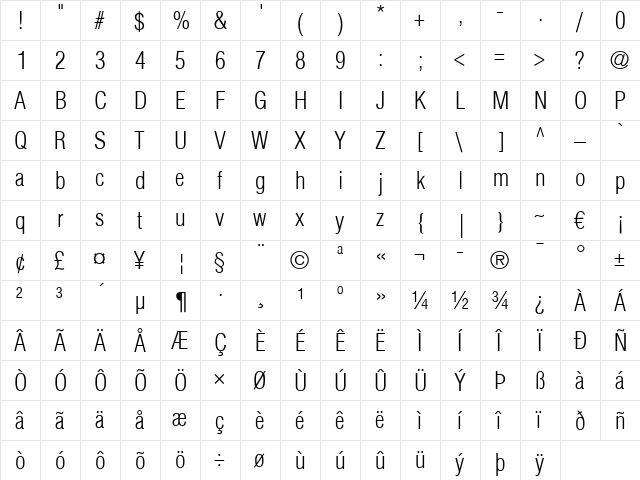
Helvetica LT CondensedLight Regular Font Preview
Design Context for Helvetica LT CondensedLight Typeface
Helvetica LT CondensedLight offers clean, dependable letterforms without strong stylistic allegiance, making it a practical choice for designers who need flexibility. The delicate stroke weight brings airiness and refinement to layouts. The condensed width makes it efficient for tight spaces without sacrificing legibility.